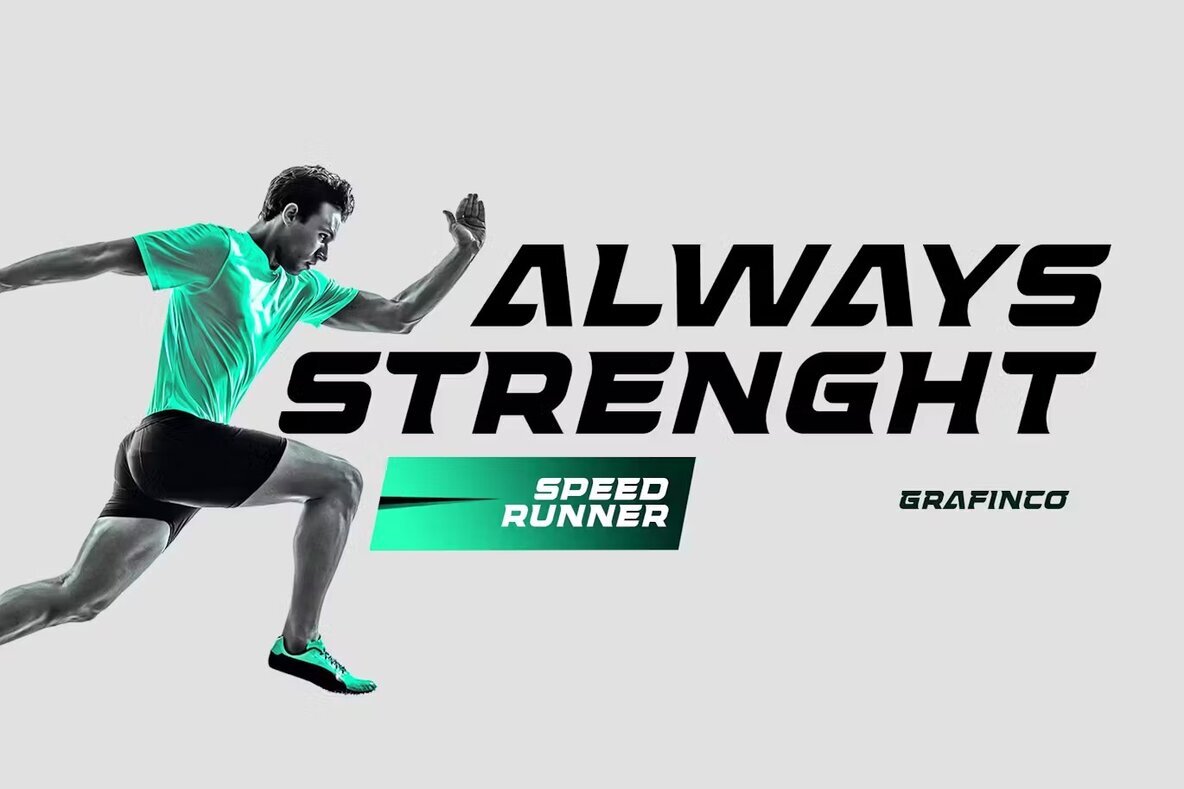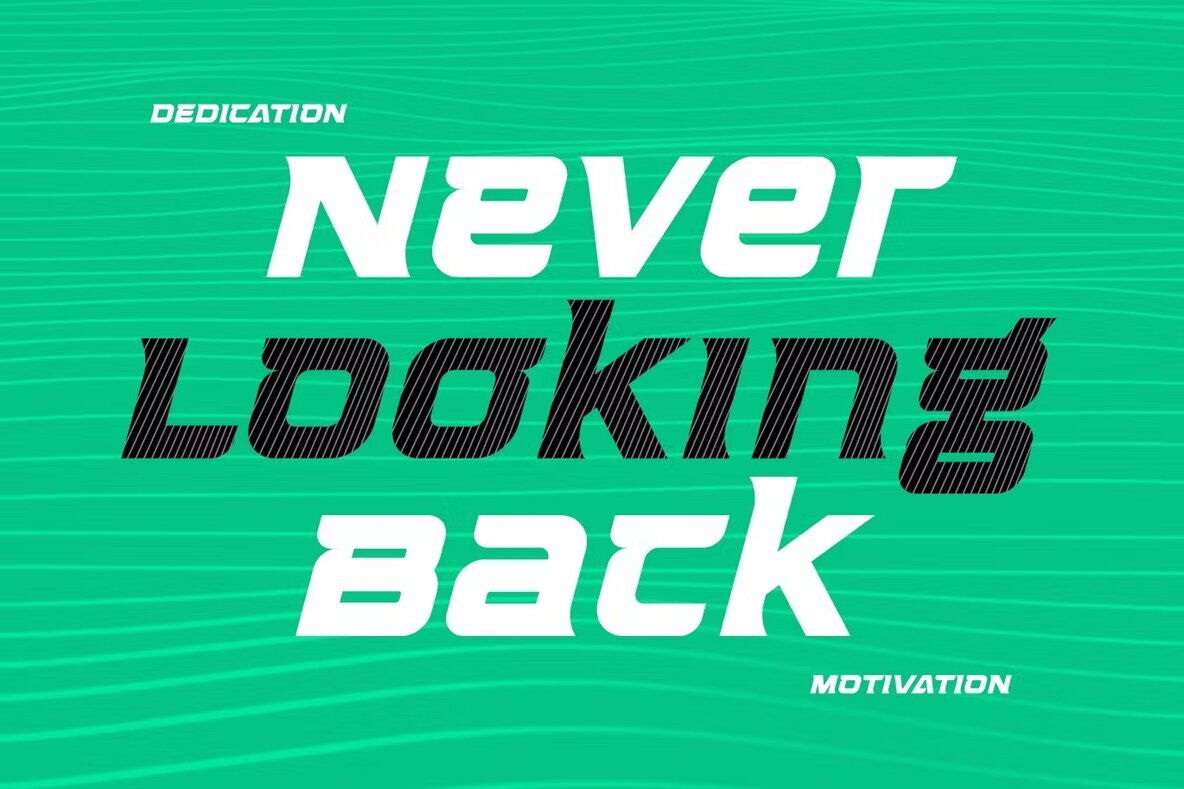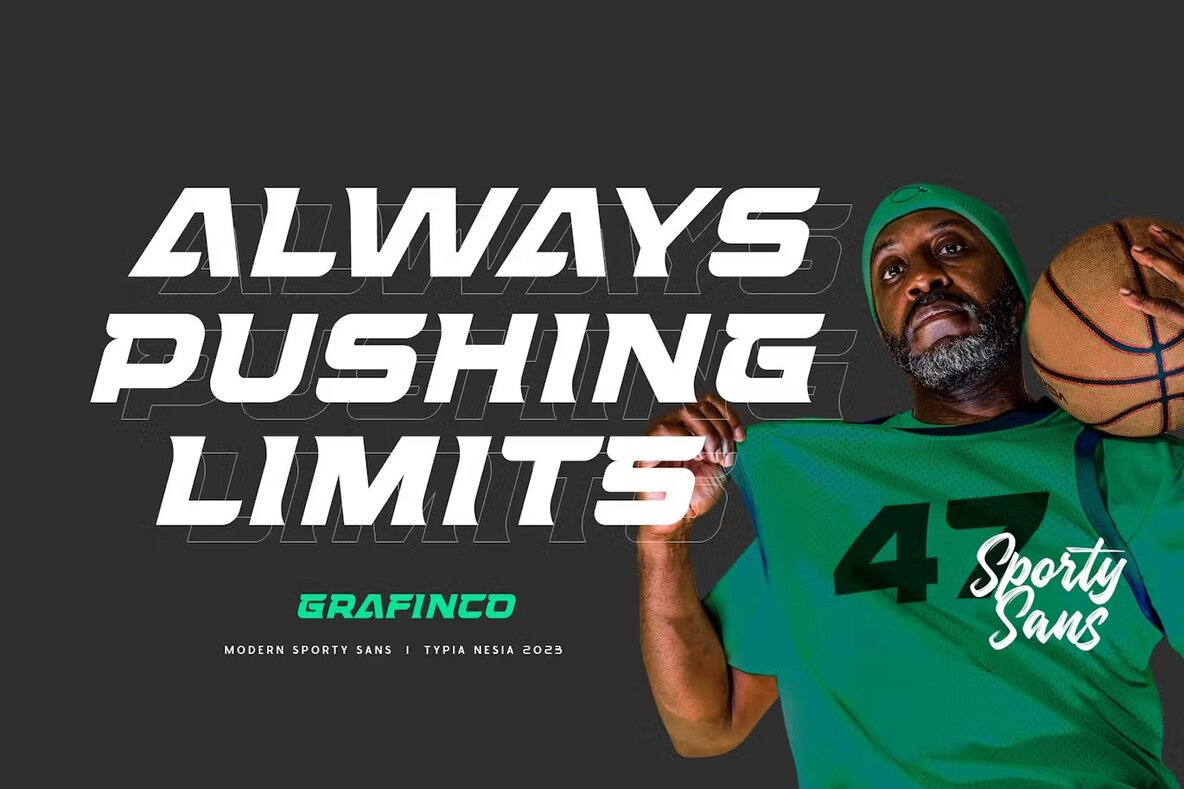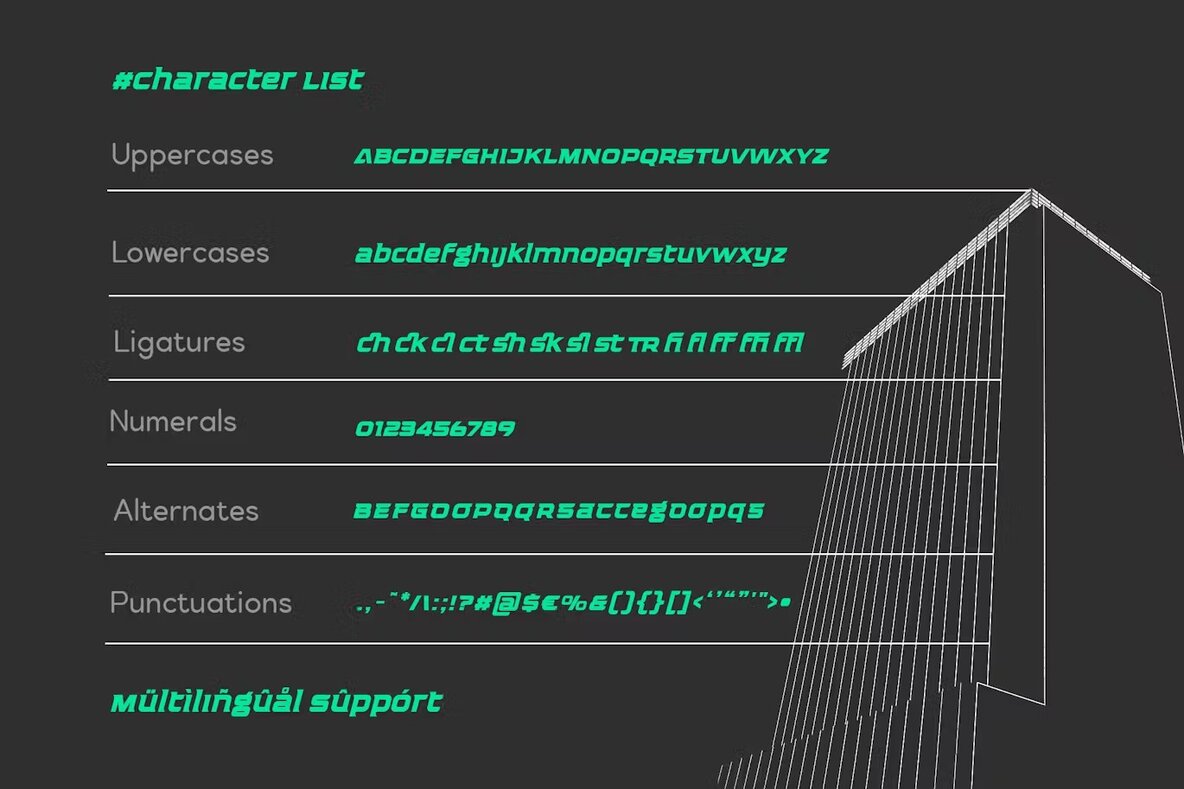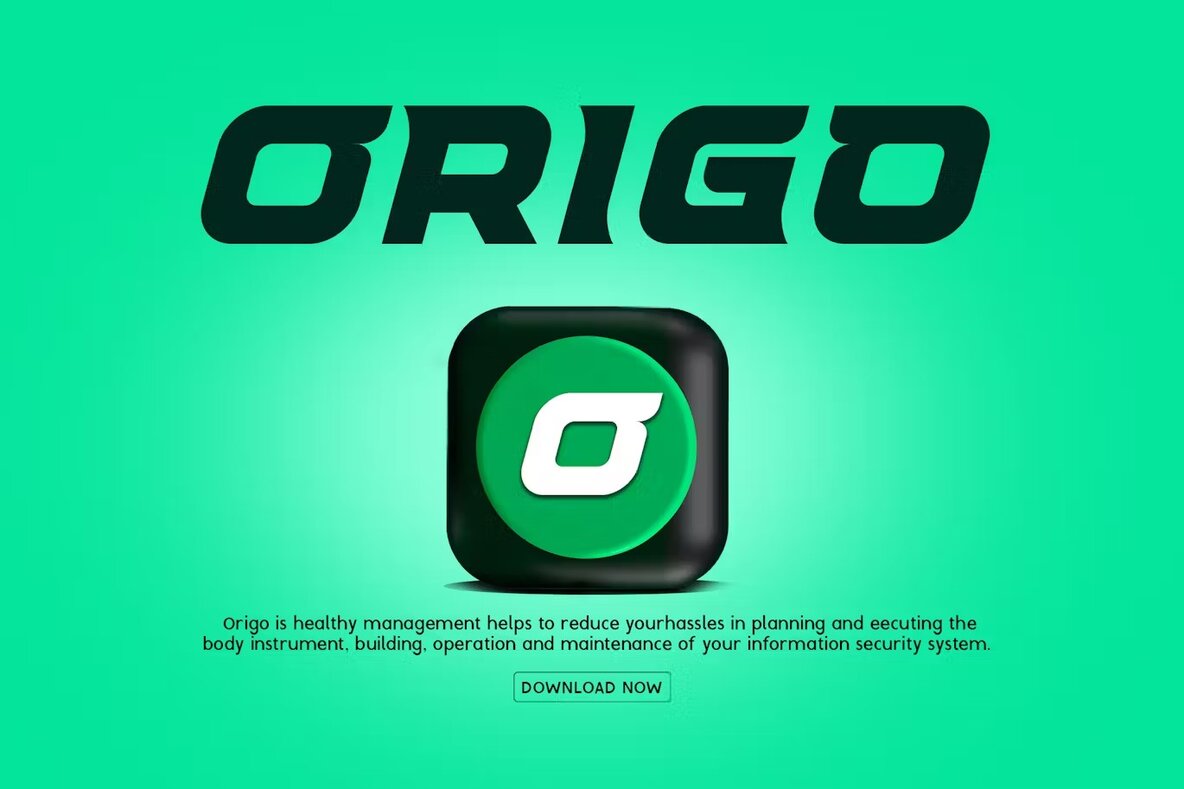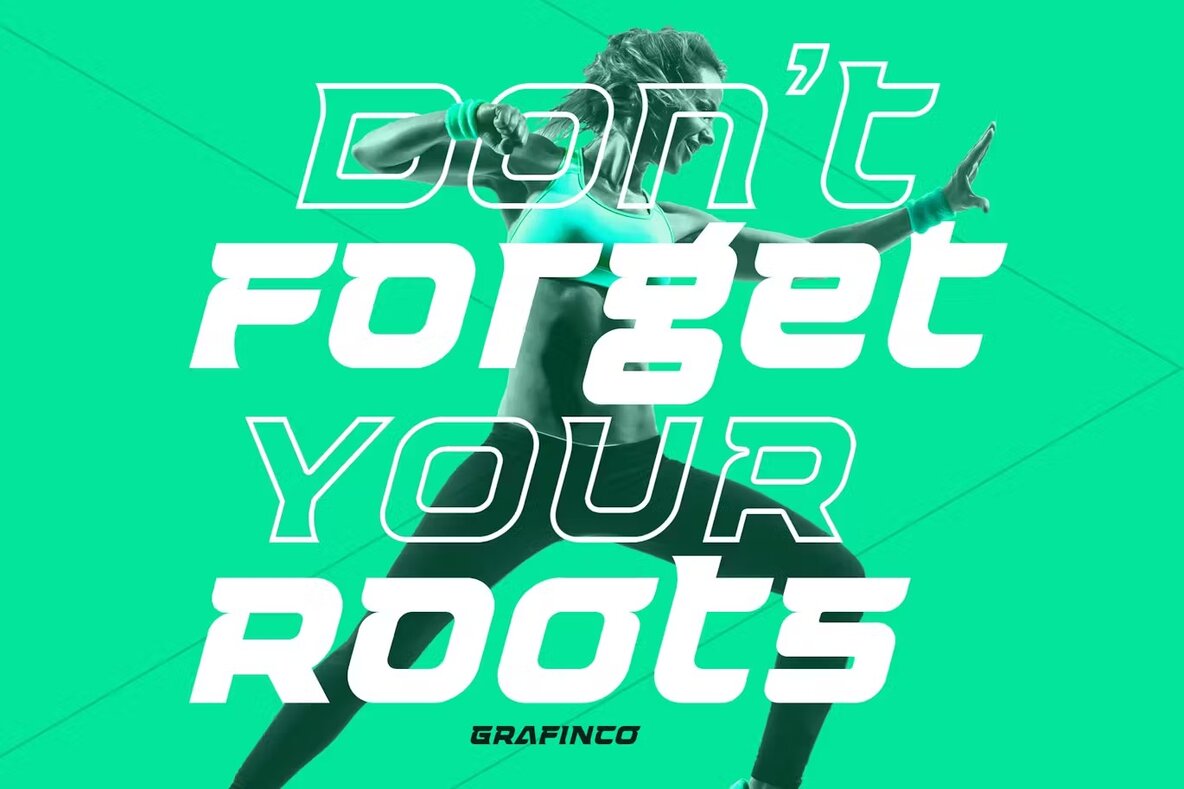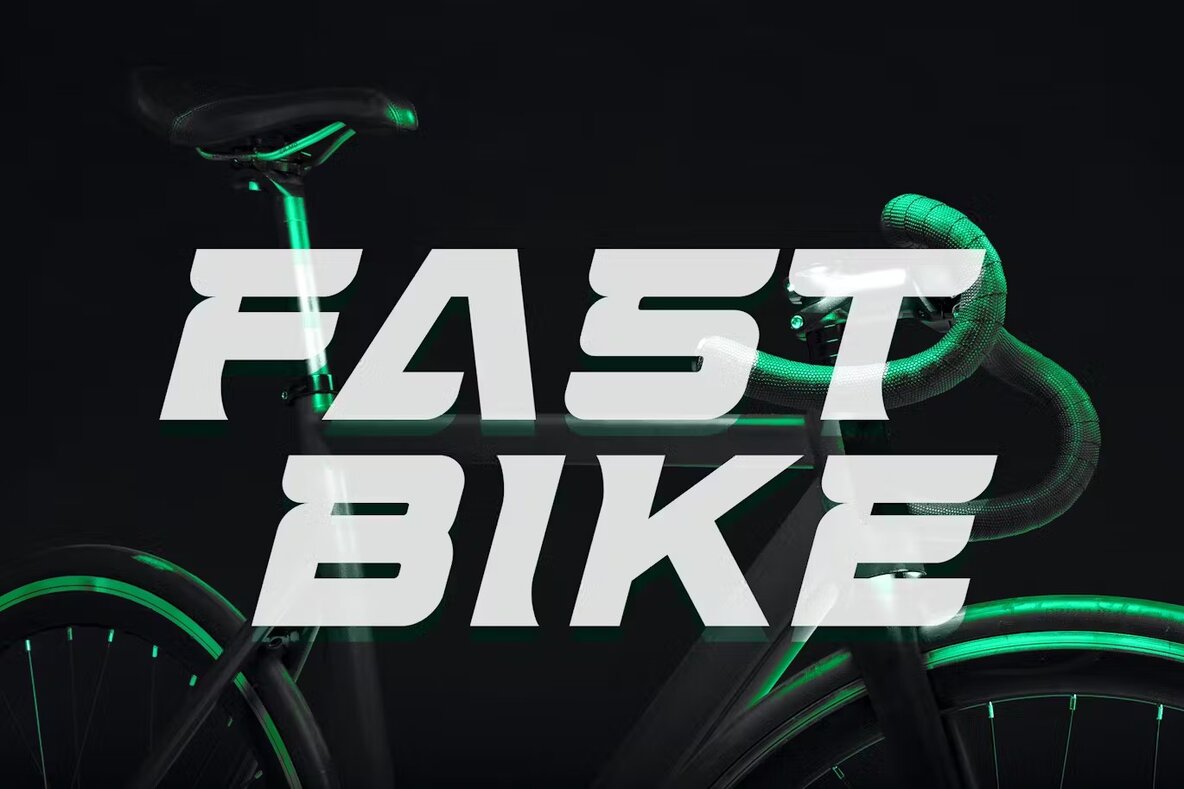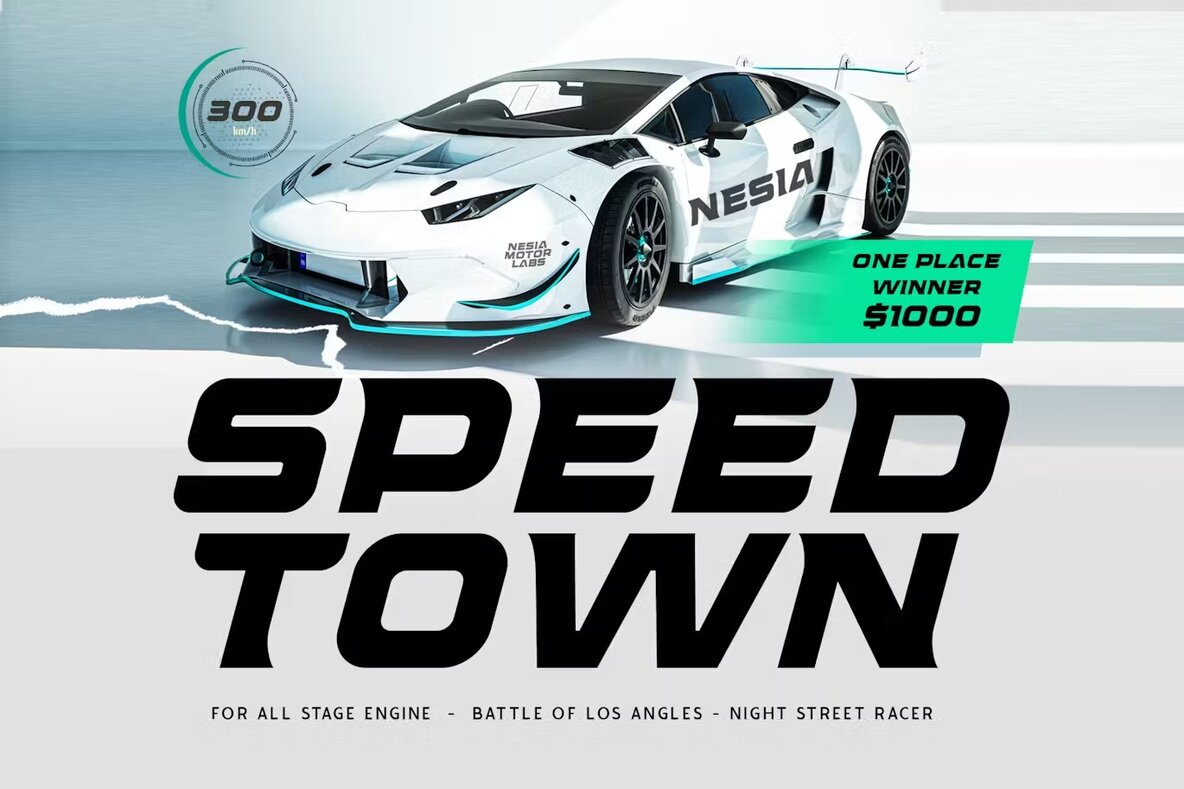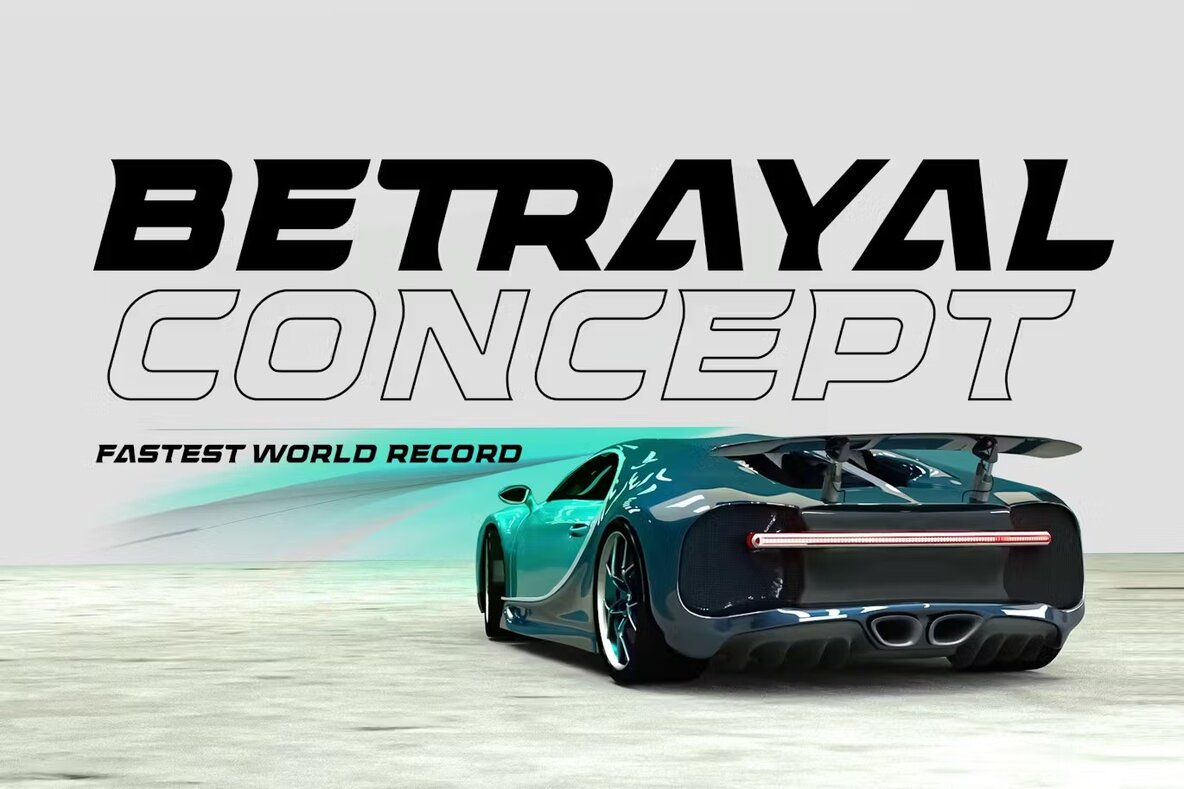
Grafinco Font
Grafinco Italic
Grafinco Font is a sport-inspired, modern expanded sans-serif typeface, offering unique ligatures and alternate characters. Its bold and sophisticated appearance makes it perfect for creating eye-catching headlines and compelling graphic designs. Ideal for a variety of design projects, Grafinco Font excels in branding, packaging, advertising, and more. Its versatile style works seamlessly in both web and print applications.
The modern design and expanded aesthetic of Grafinco Font make it an excellent choice for designers aiming to infuse boldness into their projects. Whether you're working on digital or physical mediums, this typeface stands out and enhances the visual impact of your designs. Enjoy a distinctive, professional look with Grafinco Font on your next creative venture.